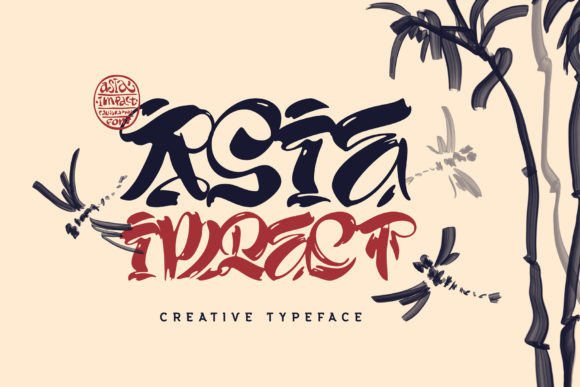
Introducing Asia Impact Font: A Cool and Uniquely Designed Display Font
Are you looking for a font that can add a touch of elegance and sophistication to your designs? Look no further than the Asia Impact Font. This cool and uniquely designed display font is perfect for creating stunning food menus, posters, flyers, and prints. In this article, we’ll explore the features and benefits of the Asia Impact Font and how you can use it to take your designs to the next level.
What is Asia Impact Font?
Asia Impact Font is a display font designed to make a statement. Its unique and cool design makes it perfect for creating eye-catching headlines, titles, and captions. The font is inspired by the cultural and aesthetic traditions of Asia, with a modern twist that makes it suitable for a wide range of design applications.
Key Features of Asia Impact Font
- Unique Design: Asia Impact Font has a distinctive design that sets it apart from other fonts. Its elegant lines and curves make it perfect for creating sophisticated and stylish designs.
- High Versatility: This font is highly versatile and can be used for a wide range of design applications, including food menus, posters, flyers, prints, and more.
- Easy to Read: Despite its unique design, Asia Impact Font is easy to read, making it perfect for creating headlines, titles, and captions that need to be noticed.
- Scalable: The font is highly scalable, which means it can be used for both large and small designs without losing its quality.
Benefits of Using Asia Impact Font
There are many benefits to using Asia Impact Font in your designs. Here are just a few:
- Adds Elegance and Sophistication: Asia Impact Font adds a touch of elegance and sophistication to any design, making it perfect for high-end brands and luxury products.
- Stand Out from the Crowd: The unique design of Asia Impact Font makes it stand out from the crowd, ensuring that your designs get noticed.
- Improves Readability: The font’s clear and easy-to-read design makes it perfect for creating headlines, titles, and captions that need to be noticed.
- Endless Possibilities: Asia Impact Font can be used for a wide range of design applications, offering endless possibilities for creative expression.
How to Use Asia Impact Font
Using Asia Impact Font is easy. Here are a few tips to get you started:
- Pair it with Other Fonts: Asia Impact Font can be paired with other fonts to create a unique and stylish design. Try pairing it with a sans-serif font for a modern look or a serif font for a more traditional look.
- Use it for Headlines and Titles: Asia Impact Font is perfect for creating eye-catching headlines and titles. Use it to draw attention to your designs and make them stand out.
- Experiment with Colors: Asia Impact Font looks great in a variety of colors. Experiment with different colors to find the one that works best for your design.
Design Applications for Asia Impact Font
Asia Impact Font can be used for a wide range of design applications, including:
- Food Menus: Asia Impact Font is perfect for creating stunning food menus that showcase your restaurant’s offerings.
- Posters: Use Asia Impact Font to create eye-catching posters that grab attention and communicate your message.
- Flyers: Asia Impact Font is great for creating flyers that need to stand out from the crowd.
- Prints: Use Asia Impact Font to create stunning prints that showcase your brand’s personality and style.
Asia Impact Font is a cool and uniquely designed display font that can add a touch of elegance and sophistication to any design. Its high versatility, ease of use, and endless possibilities make it perfect for a wide range of design applications. Whether you’re creating food menus, posters, flyers, or prints, Asia Impact Font is a great choice. So why not give it a try and see the impact it can have on your designs?
- What is Asia Impact Font? Asia Impact Font is a cool and uniquely designed display font inspired by the cultural and aesthetic traditions of Asia.
- What design applications is Asia Impact Font suitable for? Asia Impact Font is suitable for a wide range of design applications, including food menus, posters, flyers, prints, and more.
- Is Asia Impact Font easy to read? Yes, Asia Impact Font is easy to read, making it perfect for creating headlines, titles, and captions that need to be noticed.